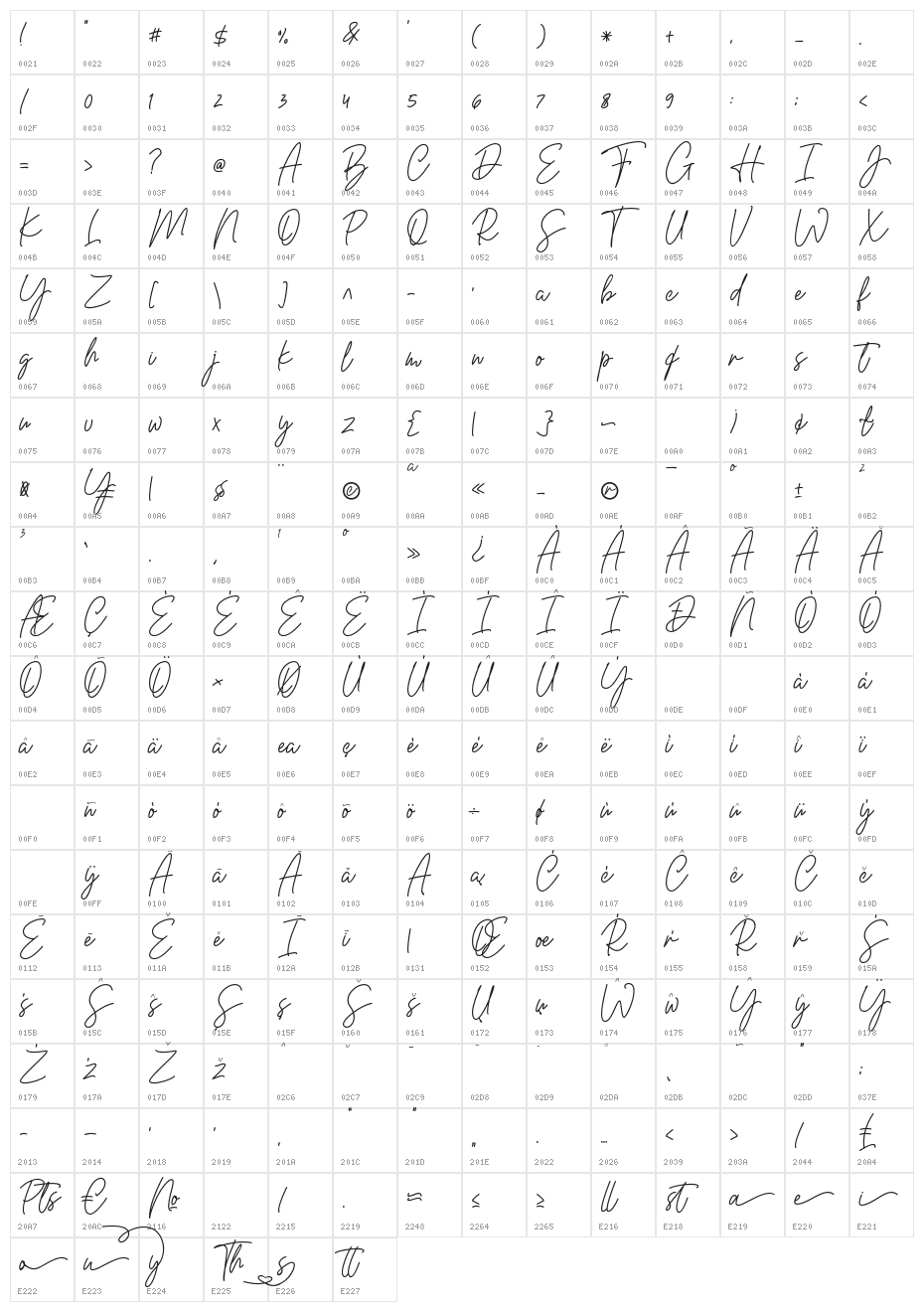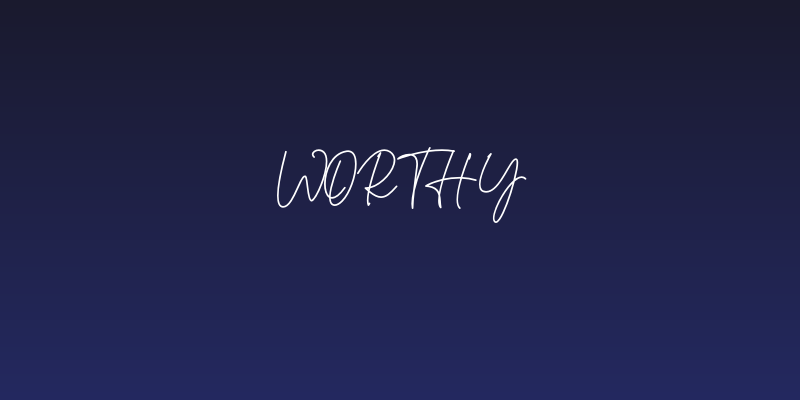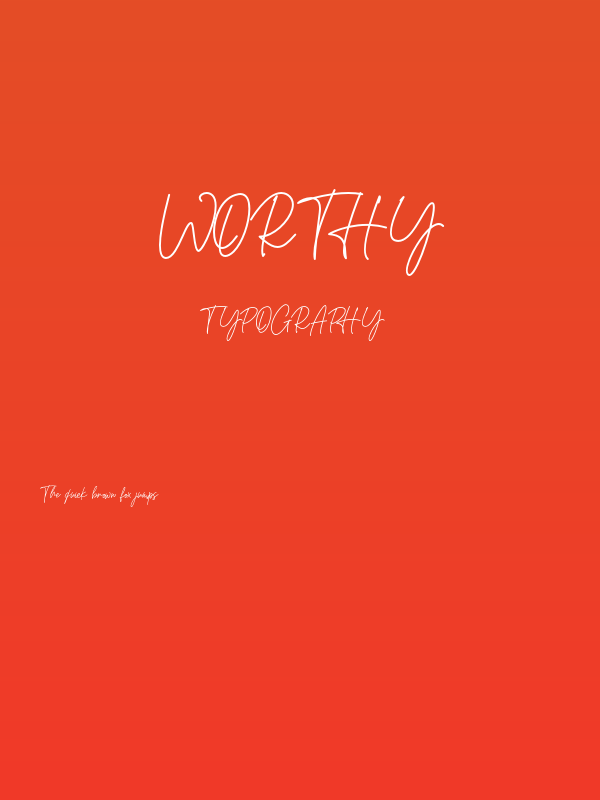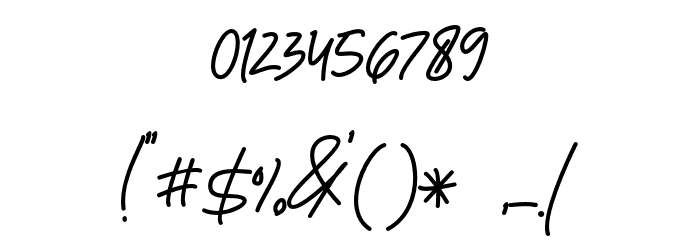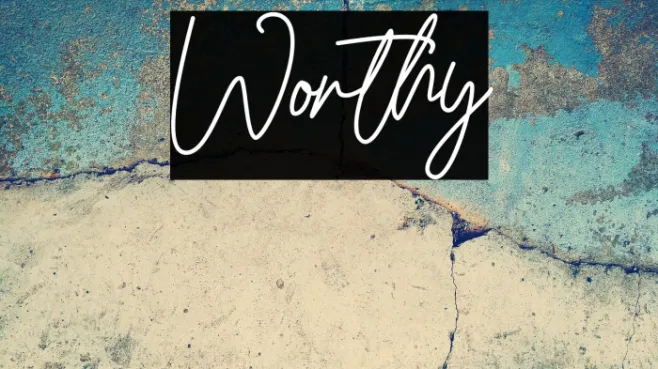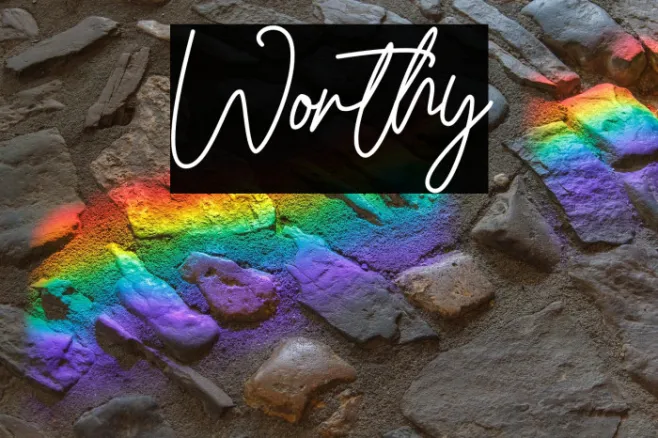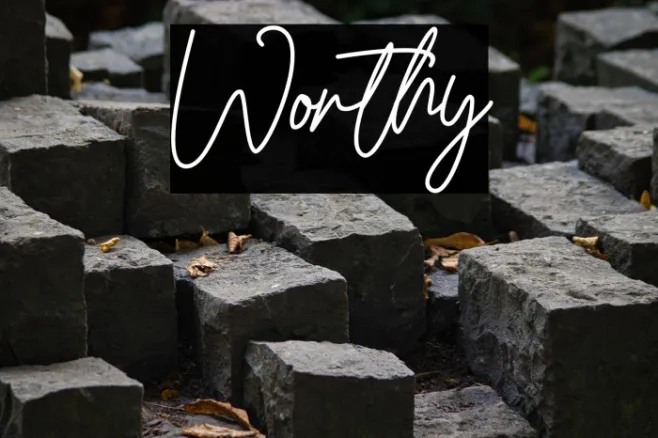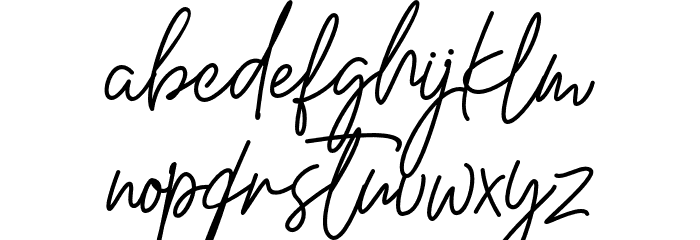
Worthy Font
Worthy Description
This font features a fluid and elegant script style, characterized by its smooth, flowing lines and a handwritten appearance. The uppercase letters are tall and slightly slanted, giving a sense of motion and grace. The lowercase letters maintain a consistent style, with loops and curves that enhance the handwritten feel. Numbers and special characters are designed to match the overall aesthetic, ensuring a cohesive look across all elements. The font's thin strokes and delicate curves make it ideal for projects that require a personal or artistic touch.
| Proposed Projects | Ideal for wedding invitations, personal branding, greeting cards, and artistic projects. |